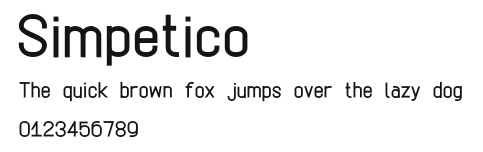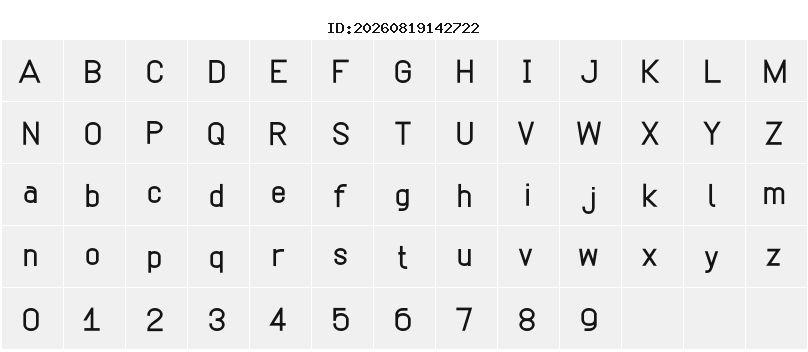
Simpetico Preview
• Font Name: Simpetico
• Font Style: normal
• Full Font Name: Simpetico
• PostScript Name: Simpetico
About Simpetico.otf
Simpetico.otf is a modern, elegant sans-serif font designed for ultimate readability and visual harmony. Perfect for branding, headlines, web design, and print materials.